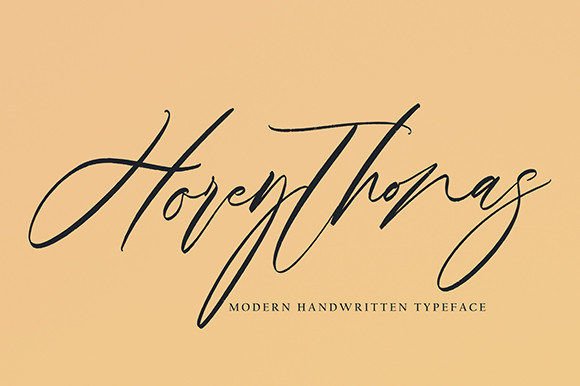
Introducing Horeythonas Font, the perfect choice for those seeking the best fonts for a modern look. Created by the talented duo Pineungtype and Missinklab, this script font is sure to captivate your imagination and elevate your design projects to new heights.
With its sweet and cursive handwritten style, Horeythonas Font exudes elegance and charm. Whether you're designing wedding invitations, branding materials, or social media graphics, this font will add a touch of sophistication and creativity to any project.
Imagine your wedding invitations adorned with the graceful curves and flowing lines of Horeythonas Font. Your guests will be enchanted by the romantic and joyful atmosphere it creates, setting the tone for a truly memorable celebration.
Not only is Horeythonas Font visually stunning, but it also offers versatility in its application. From logos to product packaging, this font adapts seamlessly to various design elements, making it a valuable asset for any graphic designer or creative professional.
The beauty of Horeythonas Font lies in its ability to evoke emotion and create a connection with your audience. Its unique and distinctive style sets your designs apart from the crowd, leaving a lasting impression on anyone who lays eyes on them.
Let your creativity run wild as you explore the endless possibilities with Horeythonas Font. Its captivating curves and graceful strokes will breathe life into your projects, infusing them with a sense of elegance and modernity.
Unlock the potential of your designs with this keyword-rich font. By incorporating Horeythonas Font into your work, you convey a strong message of professionalism and attention to detail. Stand out from the competition and make a lasting impact on your target audience.
Incorporate Horeythonas Font into your design arsenal and witness the transformation it brings to your work. Its versatility, elegance, and modern appeal make it the ideal choice for those seeking to elevate their designs and leave a lasting impression.
Embrace the beauty of Horeythonas Font and let your creativity soar to new heights. Your projects deserve nothing but the best fonts for a modern look, and Horeythonas Font delivers on all fronts.